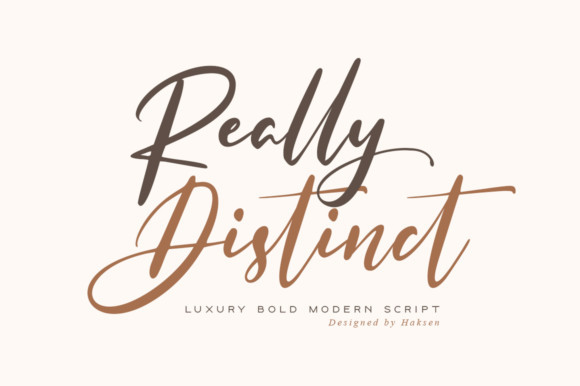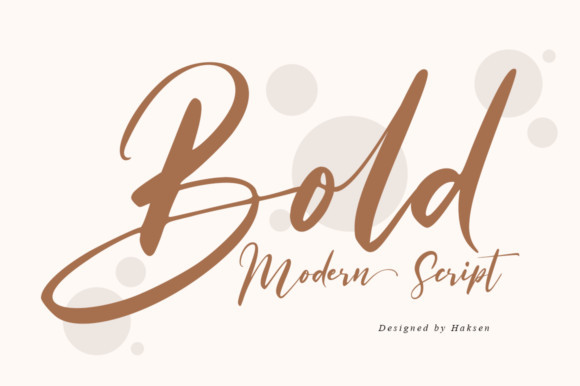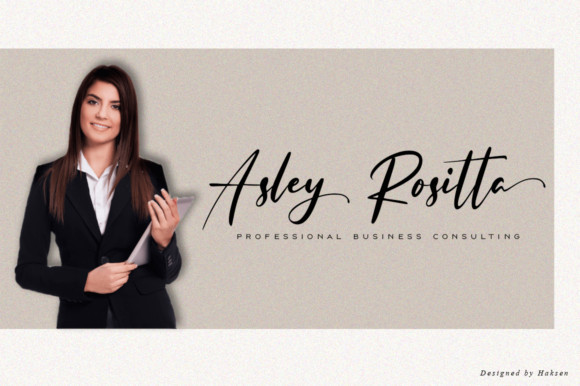
Really Distinct Font
Really Distinct looks luxurious, yet sophisticated. This handwritten font features extended characters that will look particularly adept when used in logos, branding, packaging design, and much more.